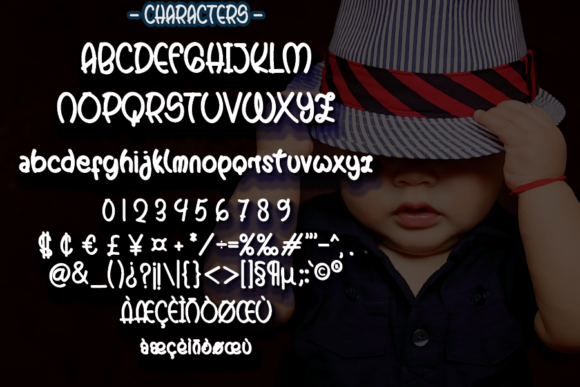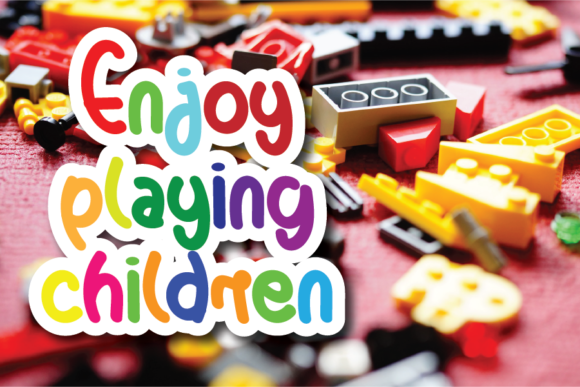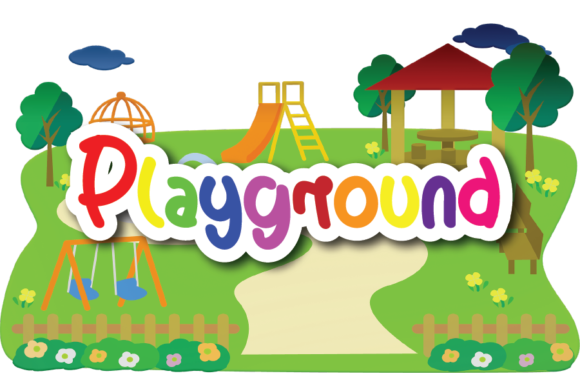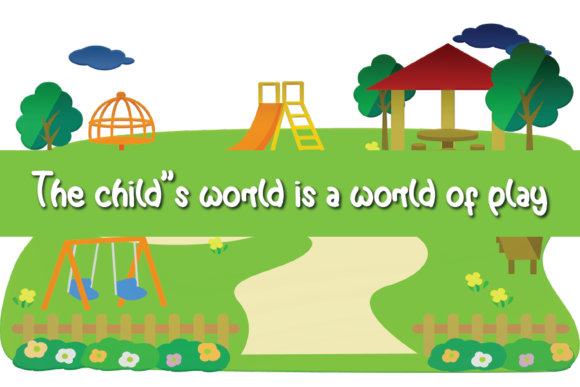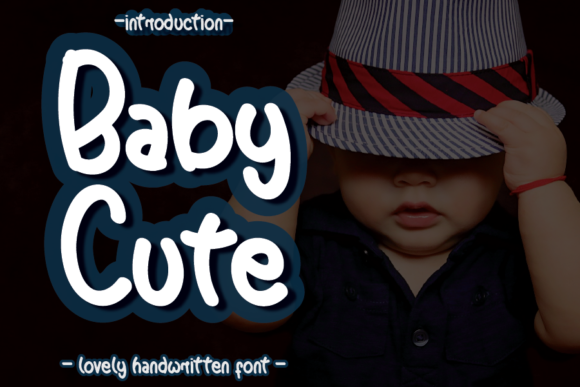
Baby Cute Font: The Perfect Choice for Your Next Children’s Design Project
Are you a designer or crafter looking for a font that’s as sweet as it is versatile? Look no further than the Baby Cute font! This quirky and incredibly sweet handwritten font is perfect for children’s themed designs, especially when combined with bright colors. In this article, we’ll dive into the world of Baby Cute font and explore its features, benefits, and uses.
What is Baby Cute Font?
Baby Cute font is a unique and charming handwritten font that’s designed to capture the innocence and playfulness of childhood. Its irregular lines and imperfect curves give it a delightfully quirky feel that’s sure to capture the hearts of your audience. Whether you’re designing a children’s book, creating a nursery decor, or crafting a set of adorable party invitations, Baby Cute font is the perfect choice.
Features of Baby Cute Font
- Handwritten style: Baby Cute font boasts a beautiful, handwritten style that’s full of character and personality.
- Quirky and playful: The font’s irregular lines and imperfect curves give it a delightfully quirky feel that’s perfect for children’s designs.
- Versatile: Baby Cute font can be used for a wide range of design projects, from children’s books and nursery decor to party invitations and more.
- Easy to read: Despite its playful style, Baby Cute font is easy to read, making it perfect for body text and headlines.
Benefits of Using Baby Cute Font
So why choose Baby Cute font for your next design project? Here are just a few benefits of using this adorable font:
- Adds a touch of whimsy: Baby Cute font adds a touch of whimsy and playfulness to any design, making it perfect for children’s themed projects.
- Evokes emotions: The font’s sweet and innocent style is sure to evoke emotions and create a connection with your audience.
- Stand out from the crowd: Baby Cute font is a unique and distinctive font that’s sure to make your design stand out from the crowd.
- Easy to pair with other fonts: Baby Cute font pairs well with a wide range of other fonts, making it easy to create a cohesive and visually appealing design.
Using Baby Cute Font in Your Design Projects
So how can you use Baby Cute font in your design projects? Here are a few ideas to get you started:
- Children’s books: Baby Cute font is perfect for children’s books, adding a touch of whimsy and playfulness to your story.
- Nursery decor: Use Baby Cute font to create adorable nursery decor, including wall art, decals, and more.
- Party invitations: Create adorable party invitations that set the tone for a fun and playful celebration.
- Branding and packaging: Use Baby Cute font to create a cohesive and visually appealing brand identity for your children’s products.
Tips for Getting the Most Out of Baby Cute Font
Here are a few tips for getting the most out of Baby Cute font:
- Pair with bright colors: Baby Cute font looks amazing when paired with bright, bold colors that match the playful style of the font.
- Experiment with font sizes: Don’t be afraid to experiment with different font sizes to create visual interest and hierarchy in your design.
- Add texture and patterns: Add texture and patterns to your design to give it an extra layer of depth and visual interest.
- Keep it simple: Don’t overcomplicate your design – keep it simple and clean to let the font shine.
In conclusion, Baby Cute font is a unique and charming handwritten font that’s perfect for children’s themed designs. Its quirky and playful style, combined with its versatility and ease of use, make it a must-have font for designers and crafters. Whether you’re designing a children’s book, creating nursery decor, or crafting party invitations, Baby Cute font is sure to add a touch of whimsy and playfulness to your project. So why not give it a try and see the magic for yourself?